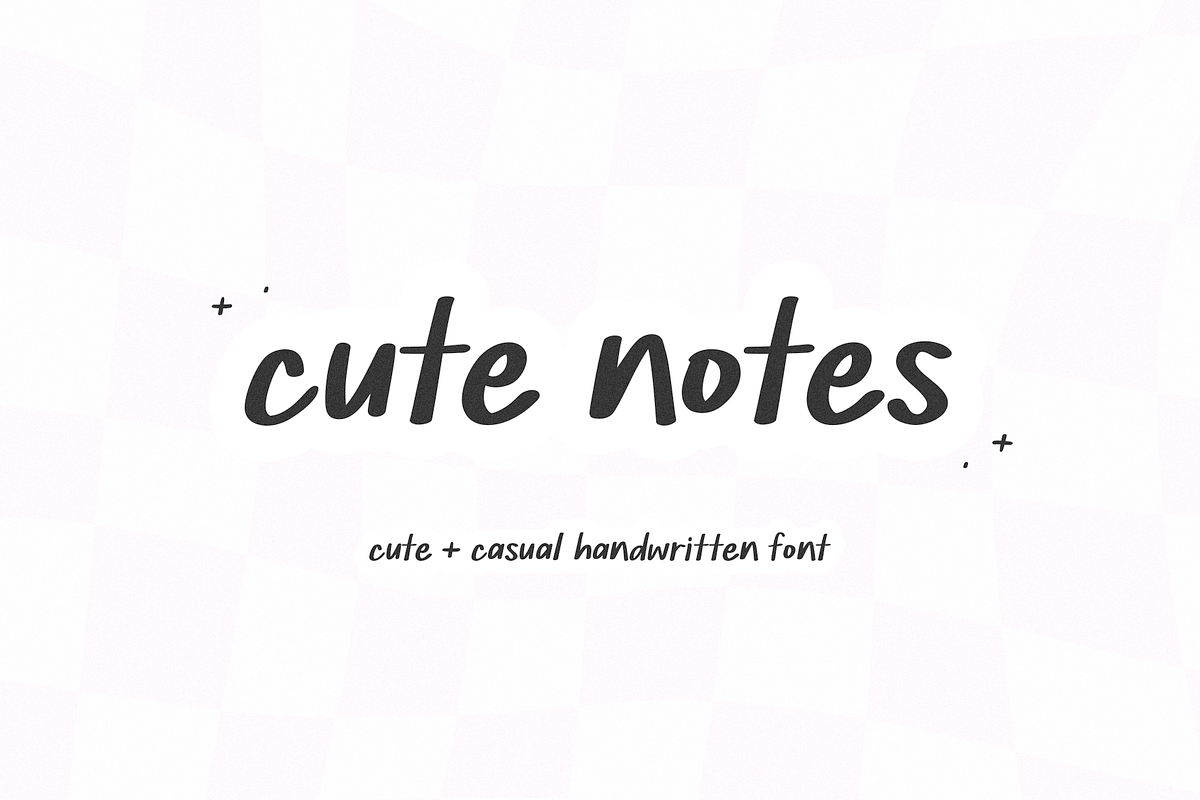
Cute Notes | Casual Print Font Free Download
Cute Notes | Casual Print Font Free Download is a sweet and simple handwritten typeface that captures the charm of casual note-taking and everyday doodles. With its clean print style, rounded edges, and friendly personality, this font is perfect for planners, journals, classroom materials, greeting cards, stickers, and social media graphics.
Designed to feel personal and approachable, Cute Notes is great for kid-focused content, DIY crafts, and anything that needs a lighthearted, handwritten look. It's easy to read and full of warmth, making it a go-to for both print and digital use.
Add a little joy and friendliness to your designs with the adorable charm of Cute Notes!